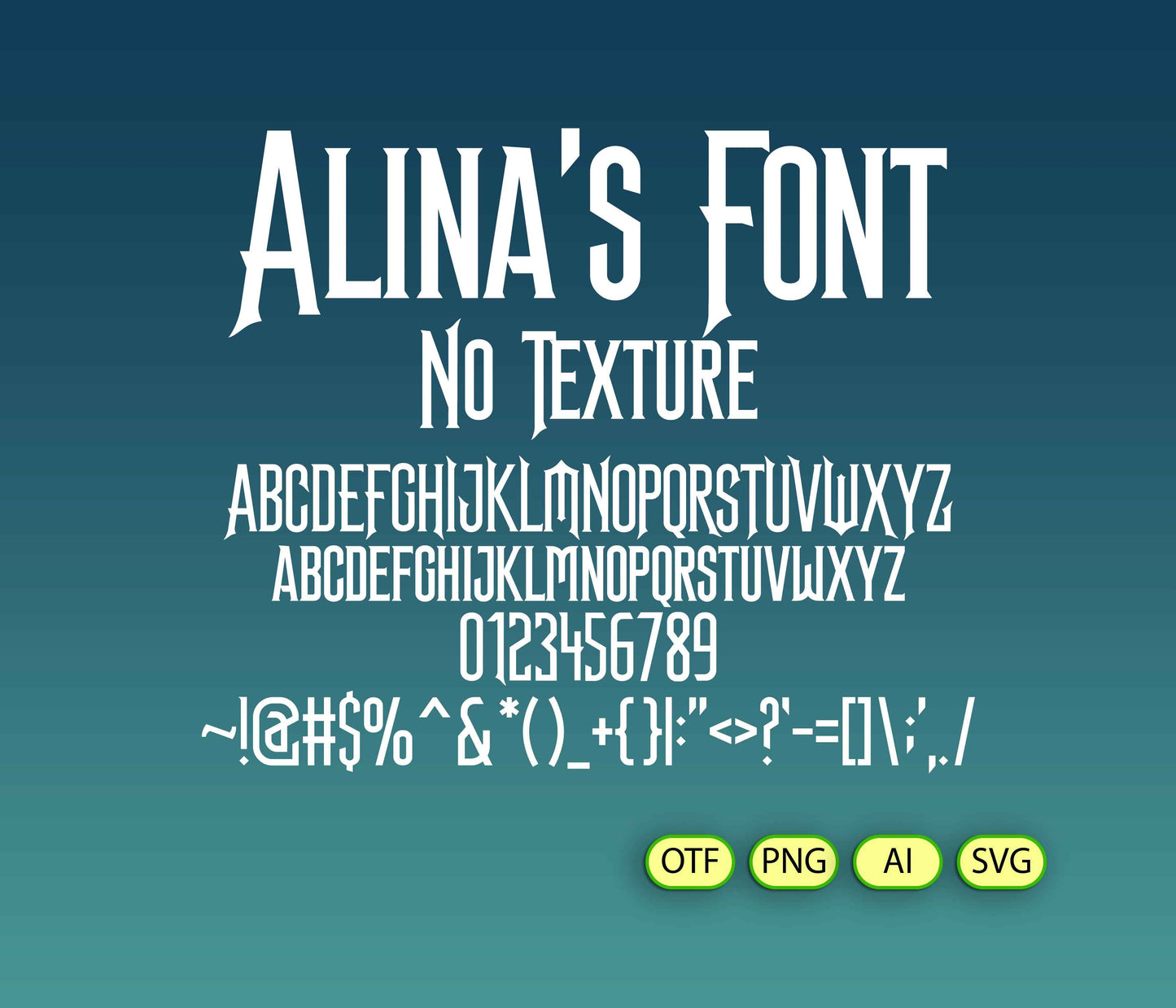
Mystic Green Sorceress Font
Immerse yourself in the magical world of our bespoke font, designed to capture the essence of an enchanting stage experience. Perfect for fans of untold stories of witches, this font embodies the whimsy, drama, and complexity of a magical journey. Whether you're creating theater materials, designing enchanting invitations, or crafting bewitching social media content, our inspired font ensures your projects resonate with the spirit of a beloved show.
Drawing inspiration from intricate visual themes, this font features elegant, sweeping curves intertwined with sharp, mysterious edges. It reflects the duality of the characters and themes, offering a visual representation of the complexity and beauty of a magical world. The comprehensive character set, including upper and lower case letters, numbers, and special characters, allows for expressive and versatile design possibilities, from enchanting headlines to captivating body text.
The Sorceress font is versatile and magical, opening a world of creative possibilities:
- Theater Promotions: Ideal for posters, programs, and promotional materials.
- Event Invitations: Create spellbinding invitations for themed parties or galas.
- Digital Design: Enhance websites and social media platforms for fan clubs or theater groups.
- Merchandise Design: Design exclusive merchandise, such as t-shirts, mugs, and tote bags.
- Book Covers: Perfect for fantasy novels or programs that evoke wonder.
- Educational Materials: Use in presentations or handouts for theater or literature classes.
- Personal Projects: Incorporate into art projects, scrapbooking, or personal stationery.
- Video Content: Use for titles and credits in video tributes or reviews related to magical themes.
Our inspired font pays homage to an iconic stage show and invites you to weave a little magic into your creative endeavors. Whether you're involved in the arts, looking to add a fantastical flair to your projects, or simply a fan of a mesmerizing world, this font lets you communicate with elegance and mystery. Let your designs defy gravity and captivate audiences with the enchanting spirit of a celebrated musical.